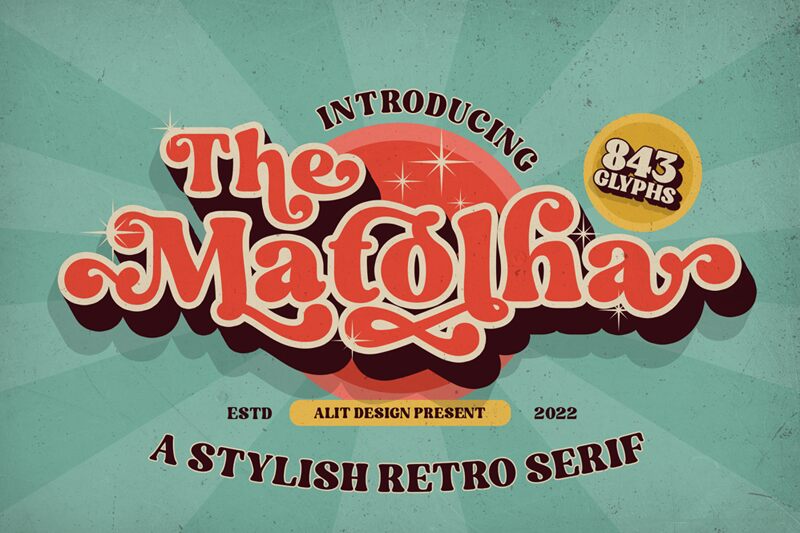
Matolha, a creation by Alit Design, is a display font that commands attention with its retro flair and extra-bold weight. The semi-expanded width of each character lends a sturdy presence to text, making it an ideal choice for headlines, signage, and branding where impact is key. With its nod to the past yet modern execution, Matolha exudes a sense of nostalgia that's perfectly balanced with contemporary design trends.
Whether you're aiming for an aesthetic that's bold and assertive or fun and whimsical, this font offers versatility while maintaining its distinct personality. Its robust form pairs well with various color palettes and design elements, ensuring that Matolha stands out in any creative endeavor.